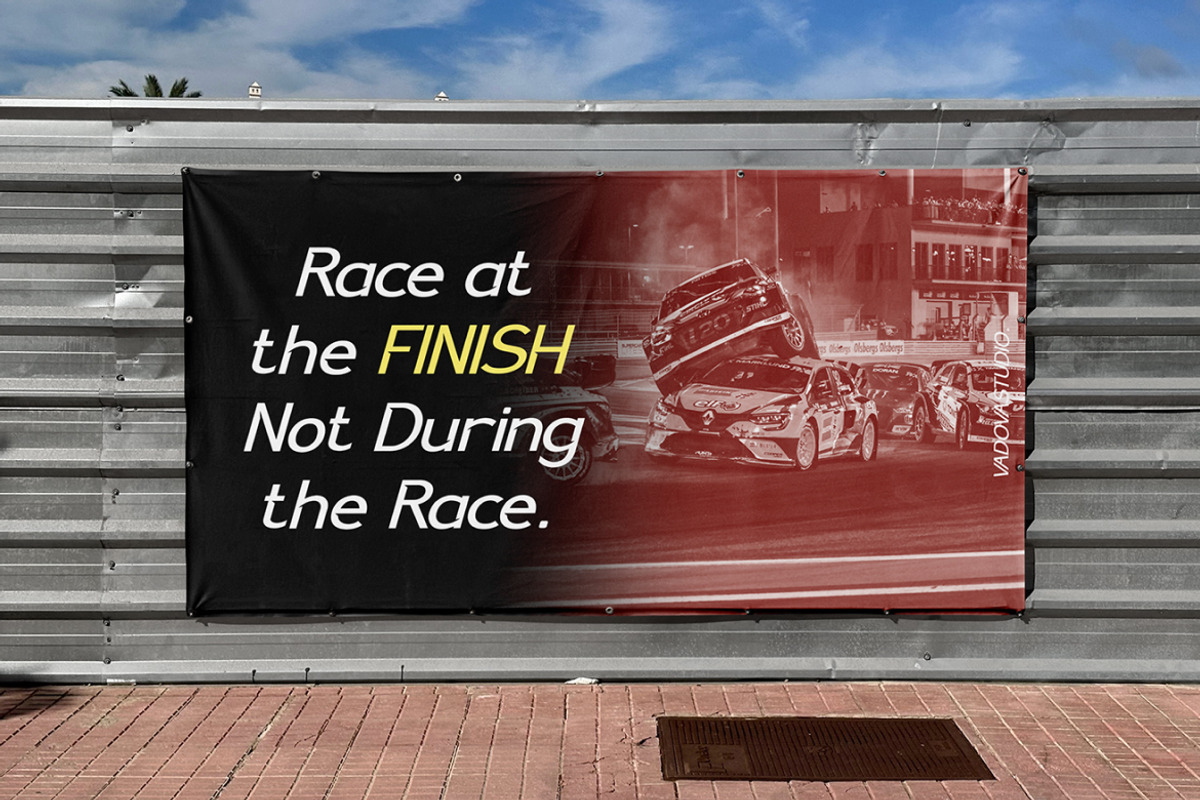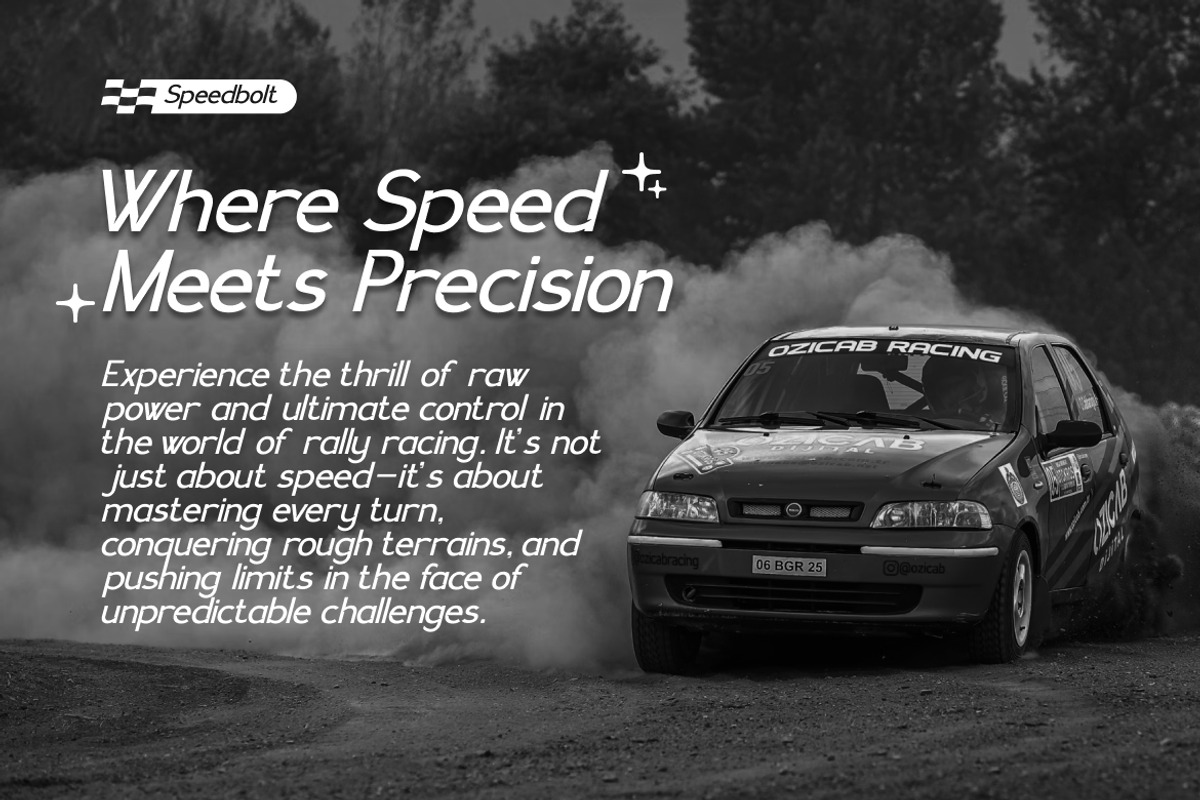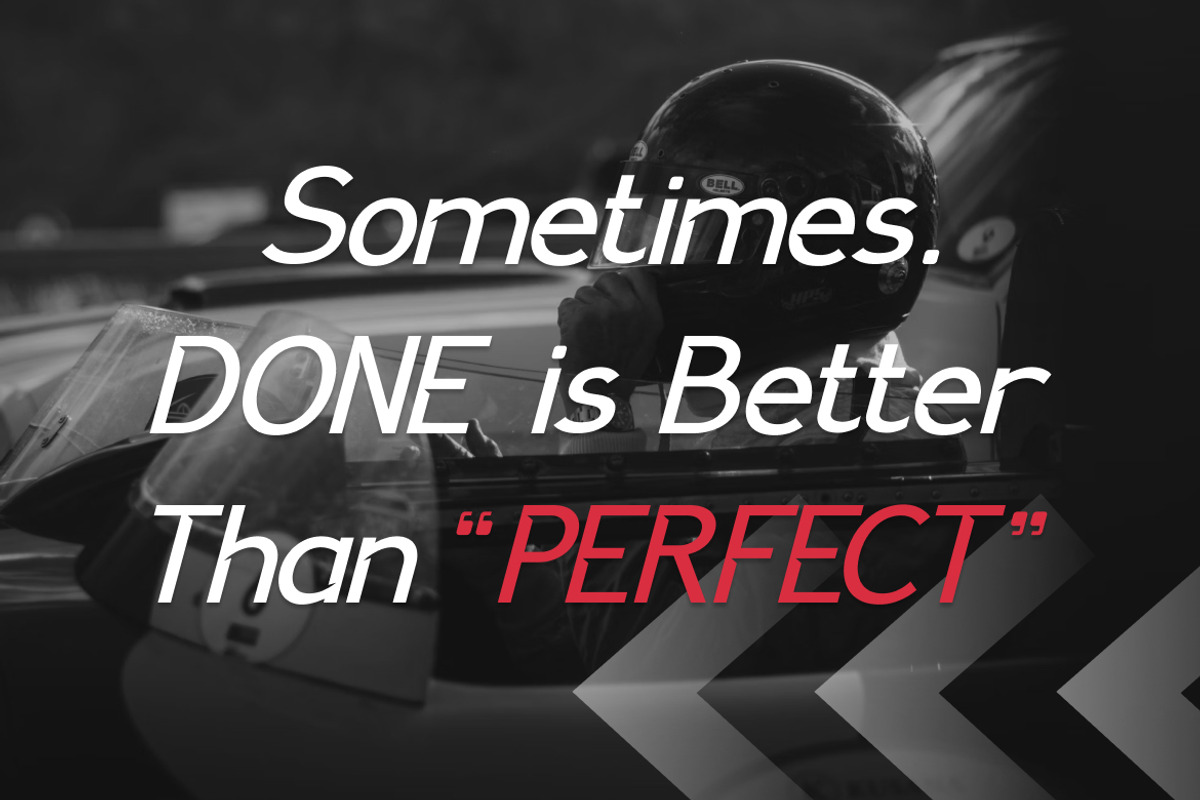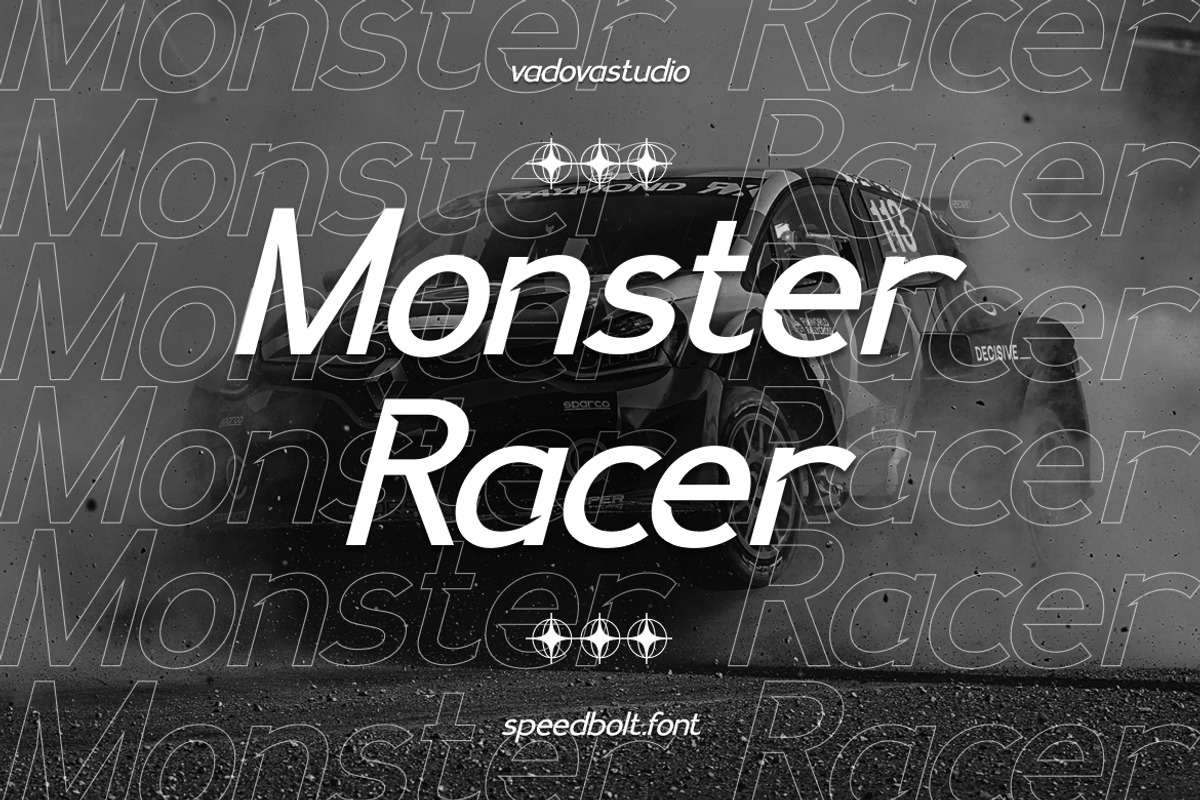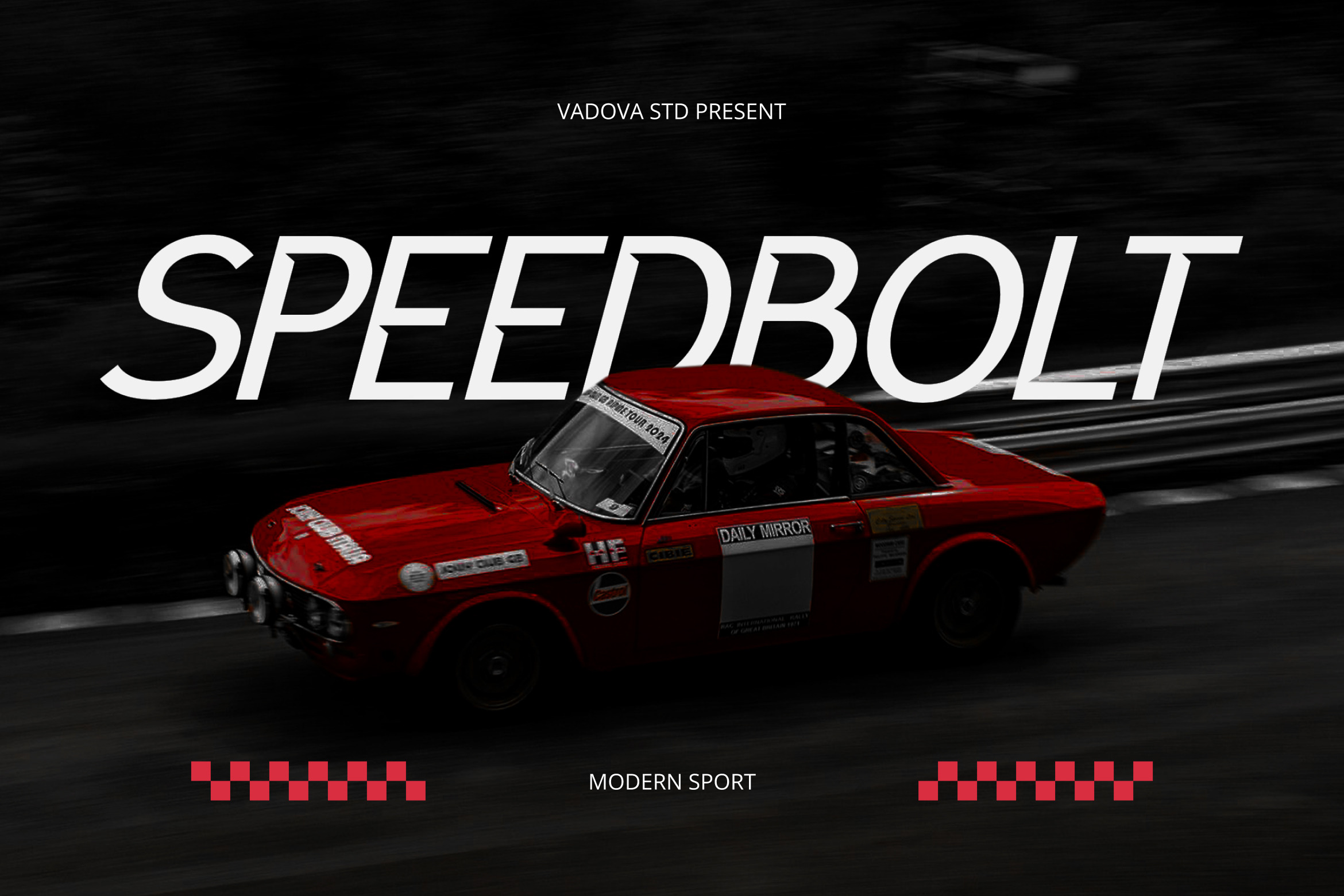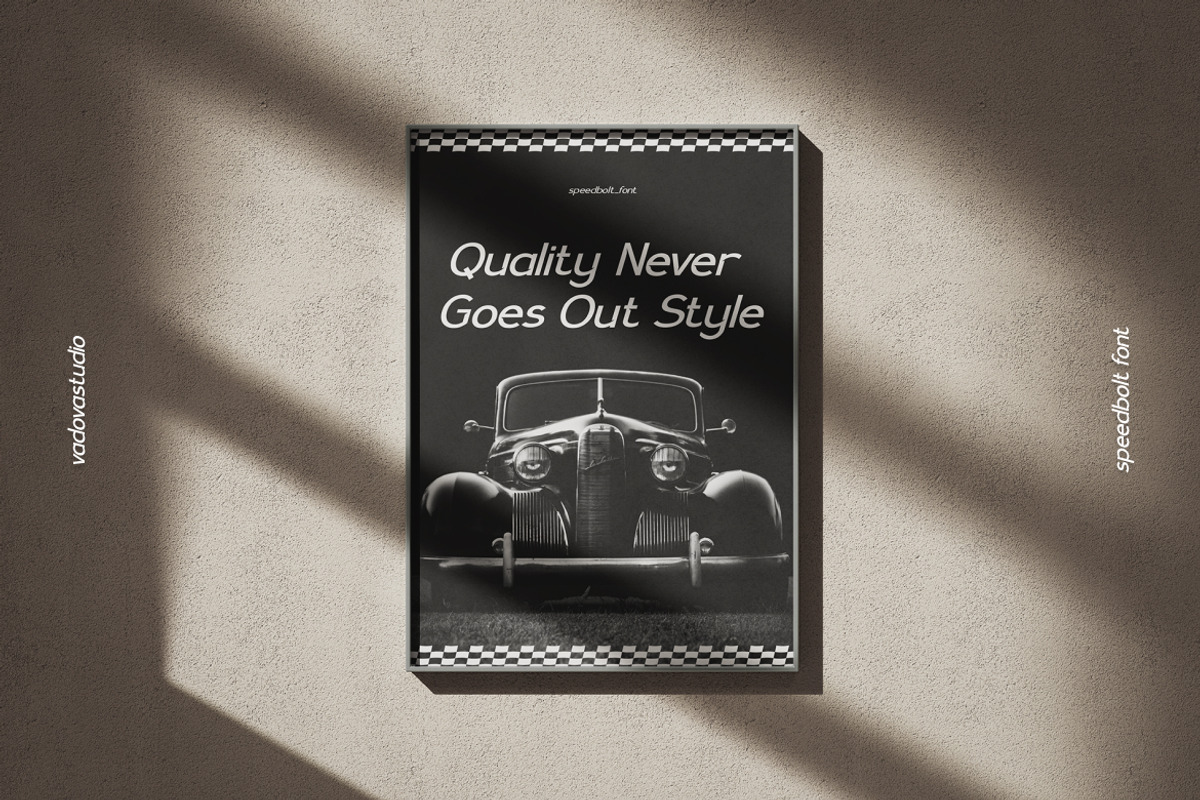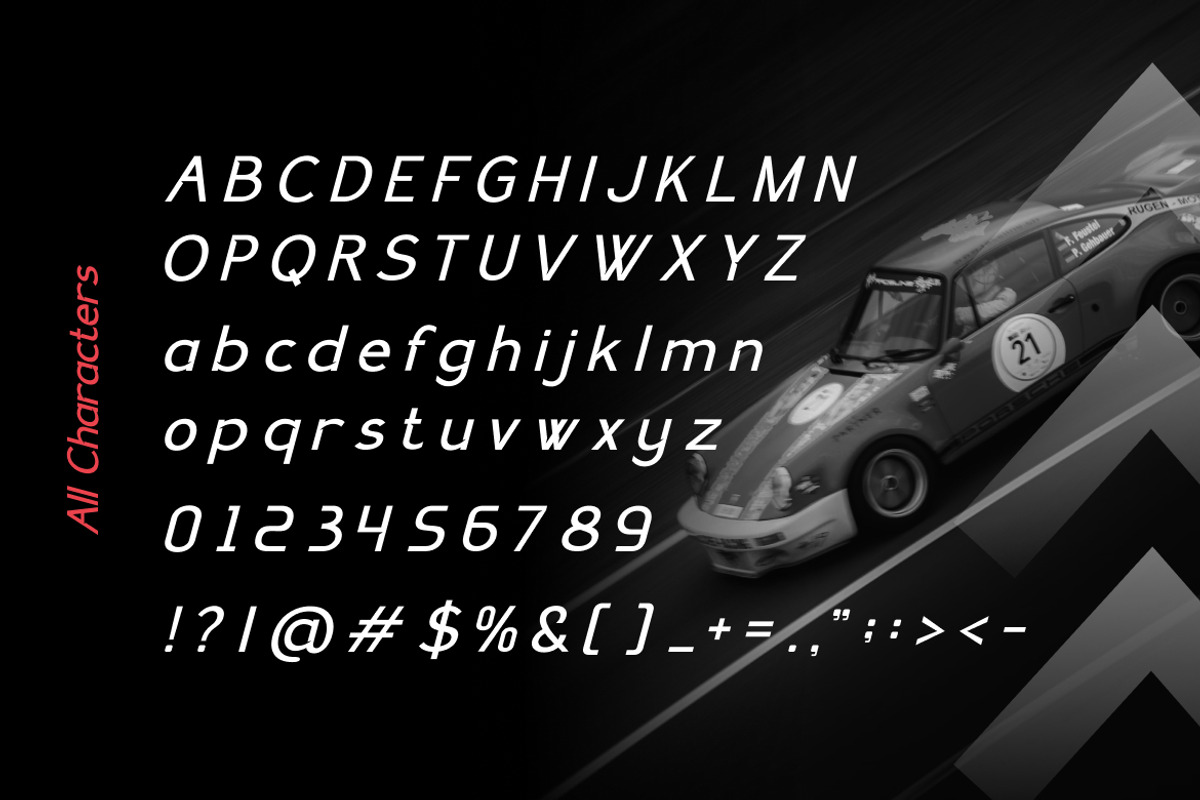
Speedbolt – Modern Sport Typeface
Speedbolt is a modern sporty sans serif font built for speed, power, and performance. With its italicized forward-leaning design, Speedbolt instantly conveys motion, energy, and adrenaline, making it perfect for racing posters, sports branding, automotive designs, and activewear graphics.
Inspired by the dynamics of motorsport and athletic competition, this font is designed to make your project stand out with bold impact and modern style.
Highlights
Sporty italic sans serif style
Bold, fast, and dynamic letterforms
Perfect for energetic, racing-inspired designs
Clean readability across print and screen
Best Uses
Racing Posters & Automotive Branding – high-speed adrenaline visuals
Sports & Fitness Projects – bold, active, and athletic designs
Event & Tournament Promotions – fast-paced typographic identity
Team Jerseys & Apparel – energetic sporty vibe
Digital Ads & Social Media – striking sporty headlines
Esports & Gaming Titles – competitive and bold energy
Uppercase & Lowercase Letters
Multilingual Support – extended language coverage
With Speedbolt, your design projects will radiate strength, speed, and modern performance — perfect for sports, racing, and active branding.